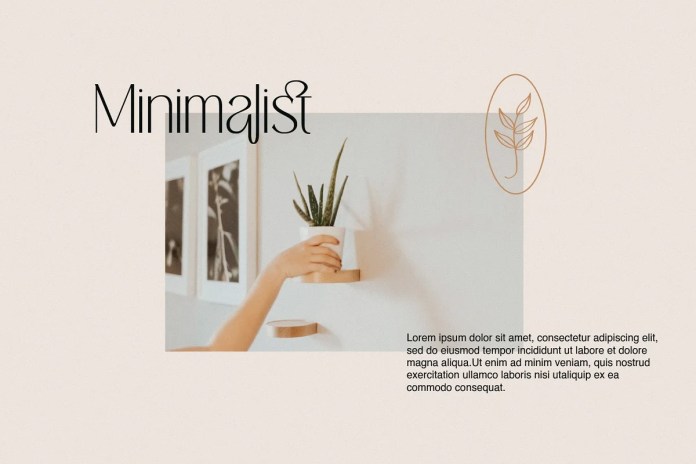
This is modern serif font, every single letters have been carefully crafted. This font works great for logos, magazine, social media.
Already matched up and ready to be used together for your next design! For those of you who are needing a touch of elegant, stylish, classy, chic and modernity for your designs, this font was created for you!